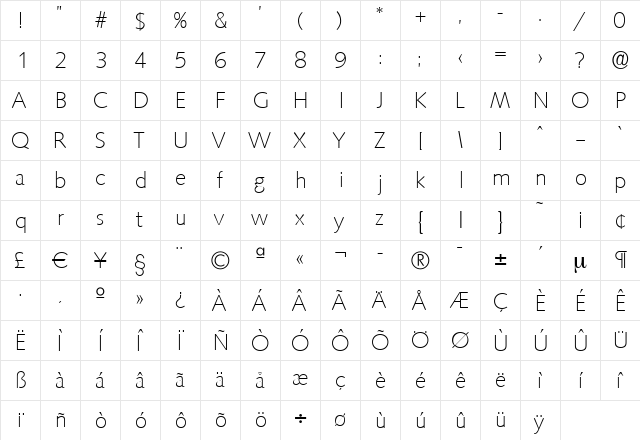
RogerBecker-ExtraLight Regular
Design Context for RogerBecker-ExtraLight Typeface
RogerBecker-ExtraLight offers clean, dependable letterforms without strong stylistic allegiance, making it a practical choice for designers who need flexibility. The delicate stroke weight brings airiness and refinement to layouts.